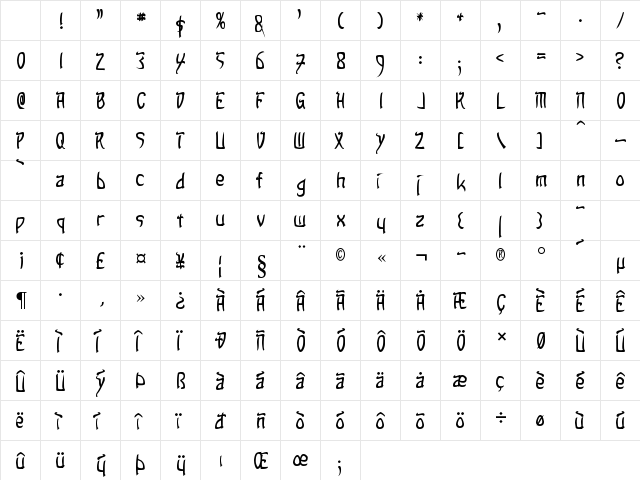
Complete Taibaijan Regular glyph index. Displaying only characters natively supported by Taibaijan Regular font.
Taibaijan is a composed and adaptable typeface that performs quietly and consistently across a wide range of design contexts.